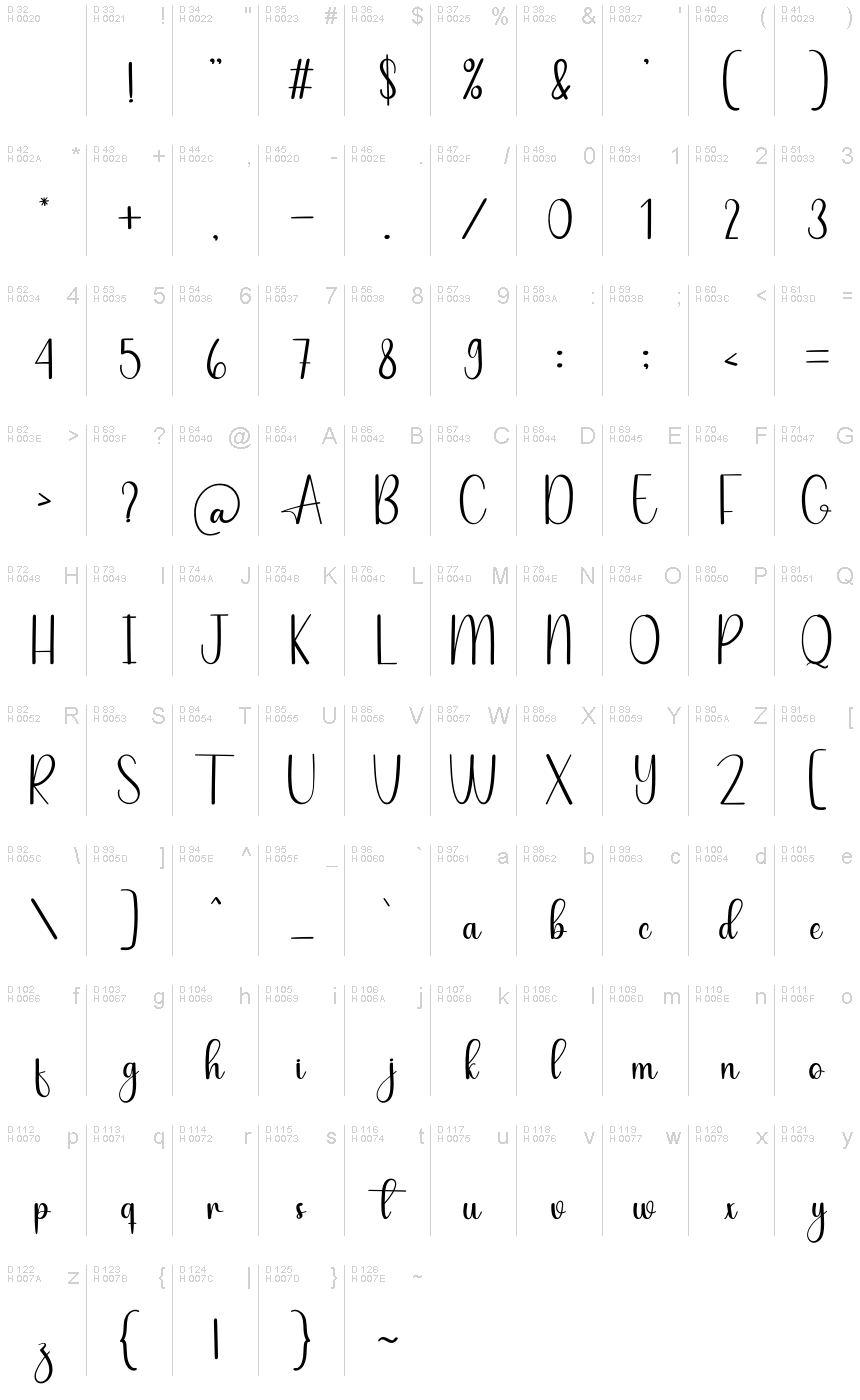
Happy February
Happy February by Scratchones radiates a casual elegance with its handwritten style, evoking the warmth of personal correspondence. This font's playful loops and flowing lines suggest a sense of joy and friendliness, making it an excellent choice for designs that aim to establish an intimate and inviting atmosphere.
The fluidity of Happy February's characters lends itself well to creative projects such as greeting cards, wedding invitations, or any setting where a touch of personal flair is desired. Its charming appearance is also well-suited for branding materials that benefit from a signature look, adding a human touch to digital spaces. Embrace the bespoke charm of Happy February to infuse your designs with its delightfully approachable aesthetic.